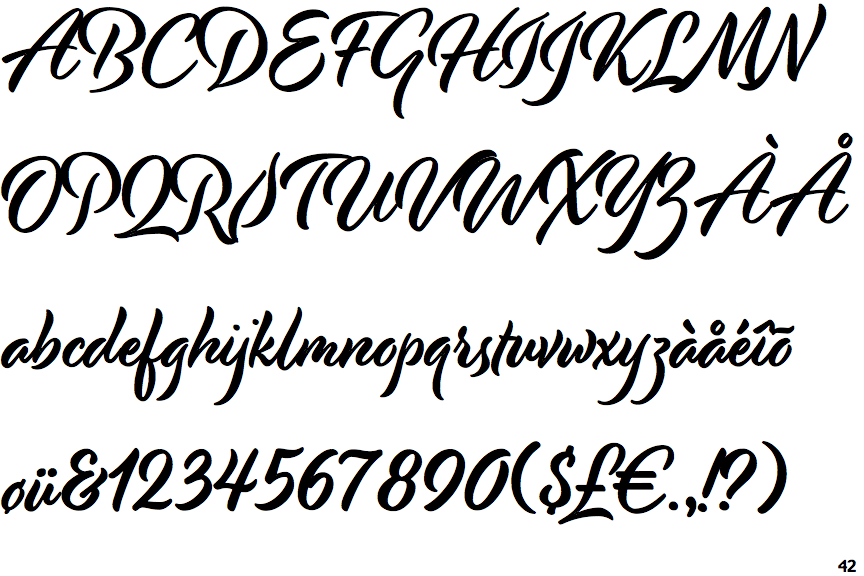
Modish Free Font Download . A script typeface with 1 style, available from adobe fonts for sync and web. Web 70,996 downloads (23 yesterday) free for personal use.
Web download modish font family · free for commercial use ·. A script typeface with 1 style, available from adobe fonts for sync and web. For commercial use, please order a license here:
See how to download modish regular for free! Web explore modish designed by laura worthington at adobe fonts. A great choice for highlighting your design elements. Web modish regular font free download.
Modish Free Font Download - A great choice for highlighting your design elements. For commercial use, please order a license here: See how to download modish regular for free! Web modish regular font free download. Web download modish font family · free for commercial use ·.
Modish Free Font Download - Web download modish font family · free for commercial use ·. Web explore modish designed by laura worthington at adobe fonts. Web 70,996 downloads (23 yesterday) free for personal use. Web modish regular font free download. A great choice for highlighting your design elements.
Modish Free Font Download - A great choice for highlighting your design elements. A script typeface with 1 style, available from adobe fonts for sync and web. Web download modish font family · free for commercial use ·. For commercial use, please order a license here: See how to download modish regular for free!
Modish Free Font Download - Web 70,996 downloads (23 yesterday) free for personal use. Web free for personal use. See how to download modish regular for free! A script typeface with 1 style, available from adobe fonts for sync and web. Download 10,000 fonts with one click.
Modish Free Font Download - Web 70,996 downloads (23 yesterday) free for personal use. For commercial use, please order a license here: See how to download modish regular for free! Web explore modish designed by laura worthington at adobe fonts. Web download modish font family · free for commercial use ·.
Modish Free Font Download - A script typeface with 1 style, available from adobe fonts for sync and web. See how to download modish regular for free! A great choice for highlighting your design elements. Web download modish font family · free for commercial use ·. Web explore modish designed by laura worthington at adobe fonts.
Modish Free Font Download - Web free for personal use. See how to download modish regular for free! Download 10,000 fonts with one click. A great choice for highlighting your design elements. Web download modish font family · free for commercial use ·.
Modish Free Font Download - Web 70,996 downloads (23 yesterday) free for personal use. A script typeface with 1 style, available from adobe fonts for sync and web. Web explore modish designed by laura worthington at adobe fonts. Download 10,000 fonts with one click. Web modish regular font free download.
Modish Free Font Download - For commercial use, please order a license here: A great choice for highlighting your design elements. A script typeface with 1 style, available from adobe fonts for sync and web. Download 10,000 fonts with one click. Web explore modish designed by laura worthington at adobe fonts.
Modish Free Font Download - Web download modish font family · free for commercial use ·. Web modish regular font free download. A great choice for highlighting your design elements. Download 10,000 fonts with one click. See how to download modish regular for free!
Modish Free Font Download - Web explore modish designed by laura worthington at adobe fonts. Web 70,996 downloads (23 yesterday) free for personal use. A great choice for highlighting your design elements. Download 10,000 fonts with one click. Web free for personal use.
Modish Free Font Download - Web download modish font family · free for commercial use ·. Web 70,996 downloads (23 yesterday) free for personal use. Web modish regular font free download. Web explore modish designed by laura worthington at adobe fonts. See how to download modish regular for free!
Modish Free Font Download - Web 70,996 downloads (23 yesterday) free for personal use. A script typeface with 1 style, available from adobe fonts for sync and web. Web download modish font family · free for commercial use ·. For commercial use, please order a license here: A great choice for highlighting your design elements.
Modish Free Font Download - Web 70,996 downloads (23 yesterday) free for personal use. Web free for personal use. A great choice for highlighting your design elements. A script typeface with 1 style, available from adobe fonts for sync and web. Web explore modish designed by laura worthington at adobe fonts.
Modish Free Font Download - A great choice for highlighting your design elements. Download 10,000 fonts with one click. For commercial use, please order a license here: Web explore modish designed by laura worthington at adobe fonts. Web modish regular font free download.
Modish Free Font Download - A great choice for highlighting your design elements. Web explore modish designed by laura worthington at adobe fonts. Web free for personal use. A script typeface with 1 style, available from adobe fonts for sync and web. Web modish regular font free download.